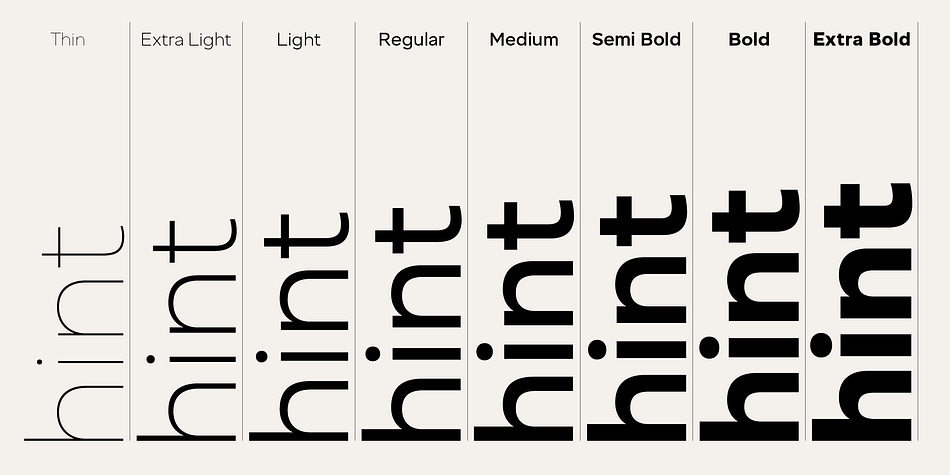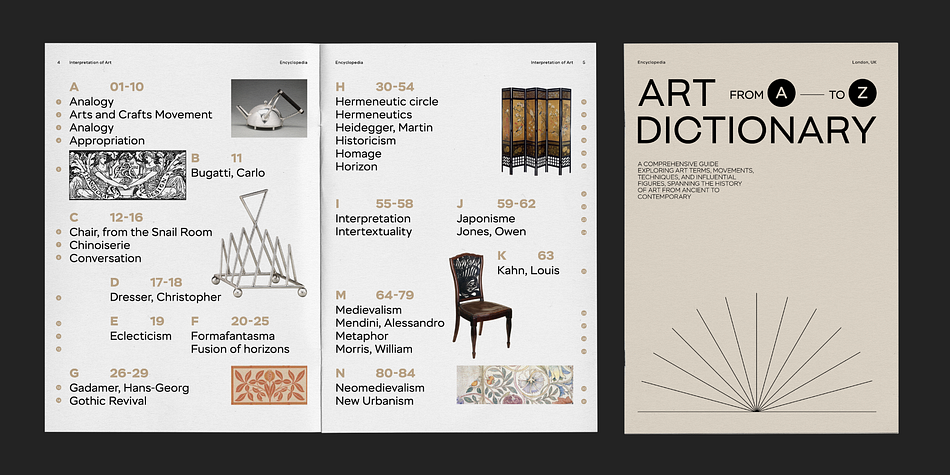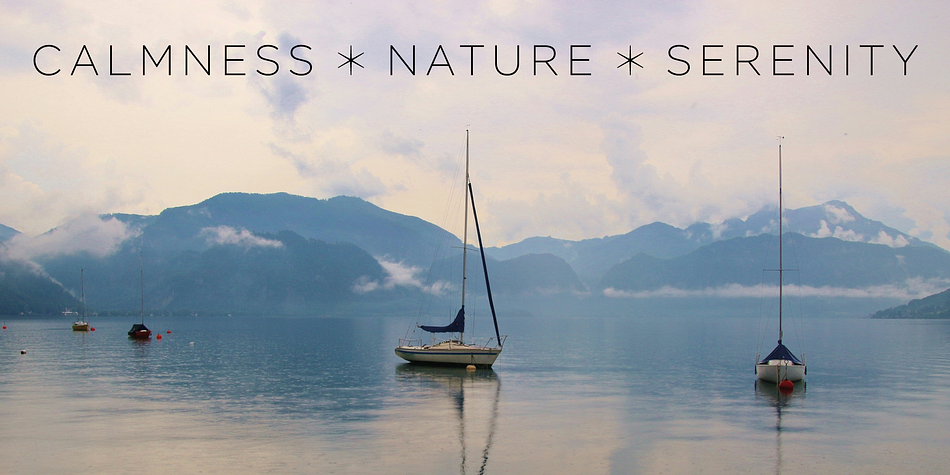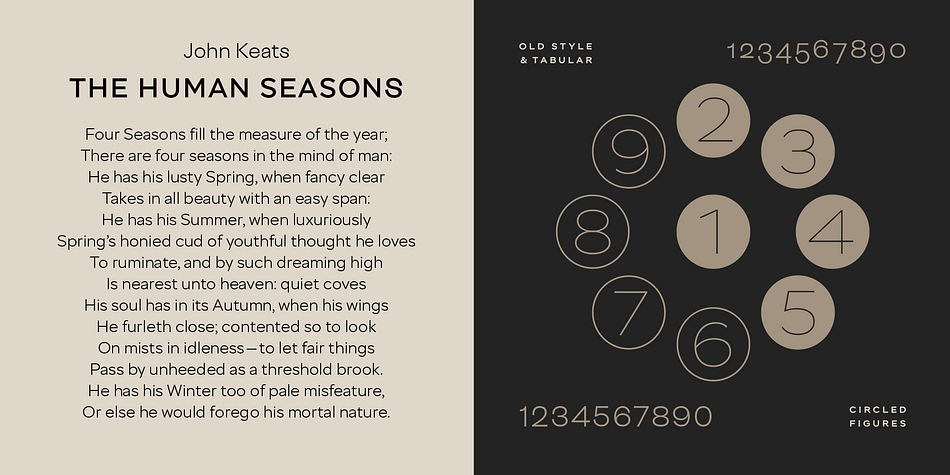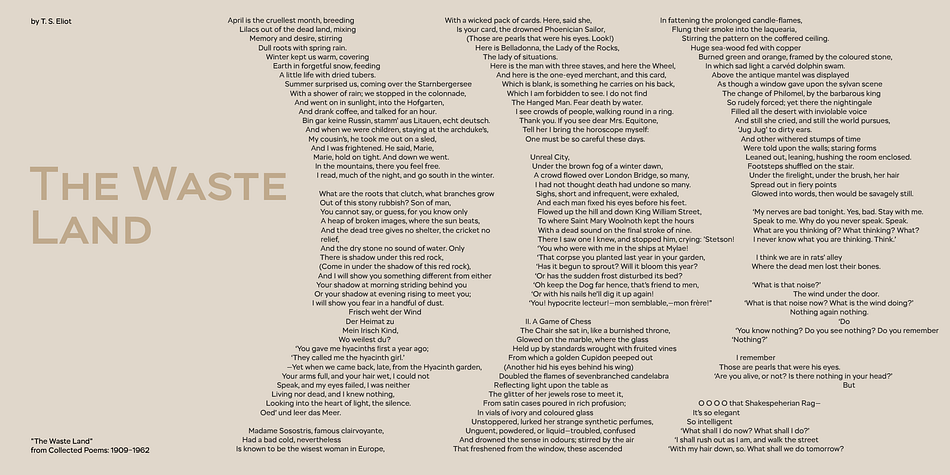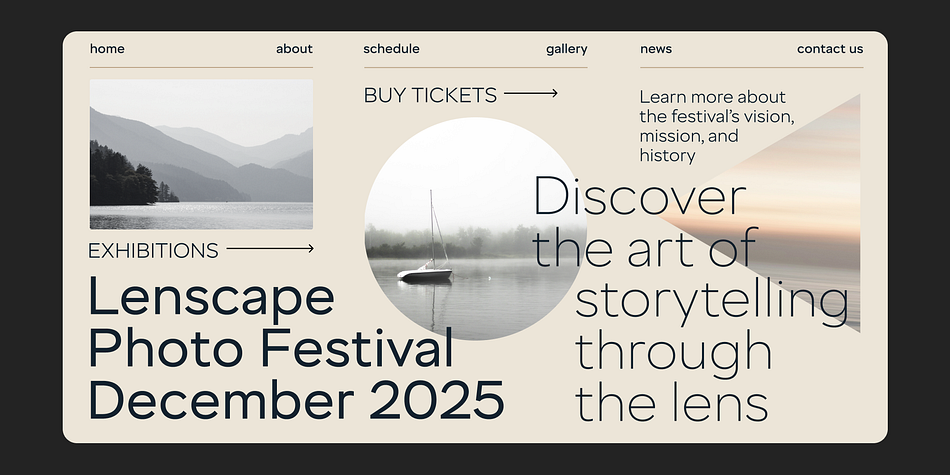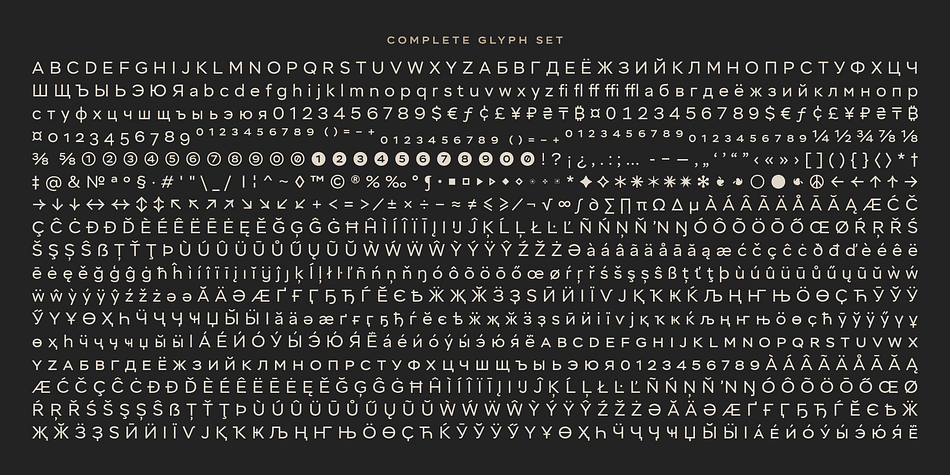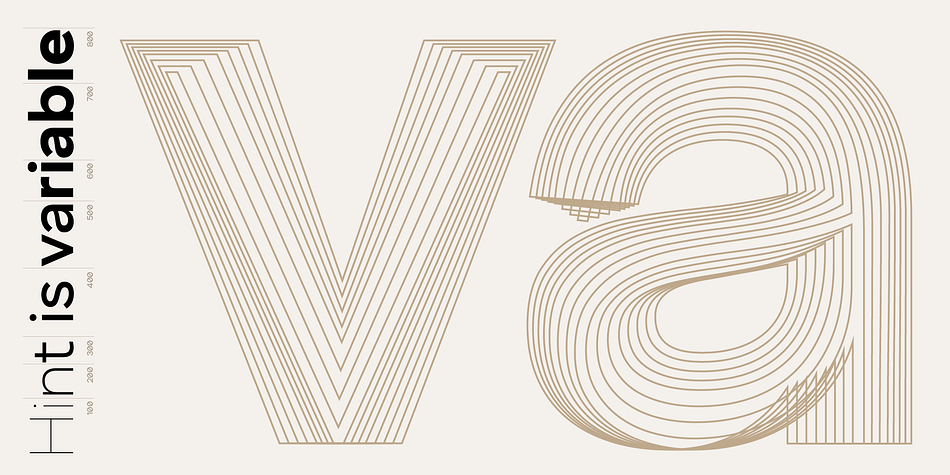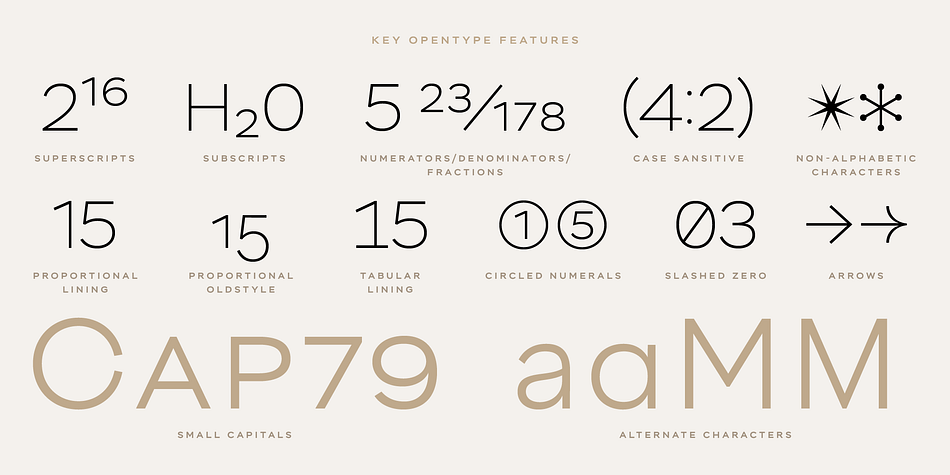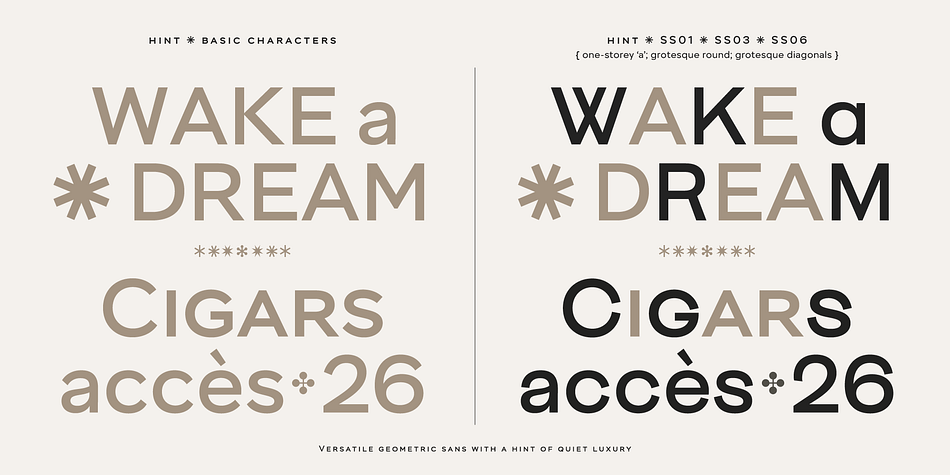
Hint
Designed by Alexandra Korolkova, Isabella Chaeva and Nikolay Nedashkovsky, Hint is a sans serif font family. This typeface has eighteen styles and was published by ParaType.
Hint is a versatile geometric sans serif, effortlessly blending functionality with a subtle touch of ‘quiet luxury’. It works equally well in branding, bold headlines, and long-form text.
In its default version, Hint is perfect when you need a reliable, high-quality geometric grotesque without unnecessary embellishments. The font is artistically balanced, pragmatic, and evenly rhythmic, with a broad selection of weights and numerous useful OpenType features. If you need to add some flair or expressiveness, you can always enable stylistic sets to transform the font, allowing it to convey a wide range of moods.
Hint consists of 18 styles: eight upright weights, ranging from thin to extra bold, eight corresponding italics, and two variable fonts. Each style contains over 1500 characters and more than 30 OpenType features. The font supports more than 200 languages, including extended Latin and Cyrillic.
The character set includes small caps, arrows, numbers in circles, numerous bullets, and various figure sets—proportional, tabular, old-style, small caps, fractional, index, outline, and black-circle numbers. Non-alphabetic characters such as quotation marks, dashes, colons, and bullets adjust their shape automatically depending on whether they are next to lowercase or uppercase letters.
Hint also features alternate characters organized into stylistic sets. These sets range from the common alternatives like a rounded “a” or “a with a tail” to a set of super-closed round letters, giving the typeface a modern twist reminiscent of late 19th and early 20th-century grotesques. The presence of diverse stylistic sets allows you to inject character into the typeface and transform it from neutral to expressive in a moment.
Here are some notable stylistic sets:
• Stylistic Set 01: Changes the two-part lowercase “a” to a single-part version, common in geometric grotesques of the 1920s, like Futura PT. This change makes the text look more concise and detached.
• Stylistic Set 02: Modifies the lowercase and uppercase “Kk” by adding a horizontal bar in the middle, which balances the letter at small sizes and aligns with the default design.
• Stylistic Set 03: Closes rounded letters (Cc, Gg, Ss, and the like.), similar to older grotesques from the late 19th to early 20th centuries. The closing of rounded letters dramatically changes the character, making the font more distinctive and even bold.
• Stylistic Set 05: Alters the lowercase “g” to create a more bookish and relaxed appearance.
• Stylistic Set 06: Changes the letters “K,” “M,” “R,” and “W,” giving them a modern reinterpretation of the old grotesque graphic style.
• Stylistic Set 09: Modifies the shape of “f” to create a more fluid flow when the letter follows tall letters like “k,” “i,” and others.
• Stylistic Set 10: Changes the “y” from a triangular shape to a rounded one, giving it a softer, handwritten feel.
• Swash feature: Additionally, the default “a” and the “a” from SS03 both have alternative forms with a “tail.” This form makes the typeface less sleek and more human, while the closed version with a “tail” gives Hint an old grotesque flair.
​​Additional Features:
• The Hint typeface includes a micro-typographer. With Stylistic Set 19, you can automatically adjust quotes, dashes, and spaces, as well as correct numerals (e.g., turning “m2” into “m²” and the (c) symbol into a copyright mark ©). This set also corrects abbreviations and other typographic nuances.
Primary font characteristics are as follows:
• 18 styles, each with 1500 glyphs
• 30+ OpenType features, including small capitals and stylistic alternates
• Supports 200+ languages, including Extended Latin and Cyrillic
• Variable fonts
Hint pairs wonderfully with wide text serifs like Circe Slab, classic fonts like Newton or Bodoni PT, and narrow display fonts like Helsa Display The character height in Hint matches that of San Francisco, making it ideal for use in app design and digital layouts without changing the font size or line spacing.